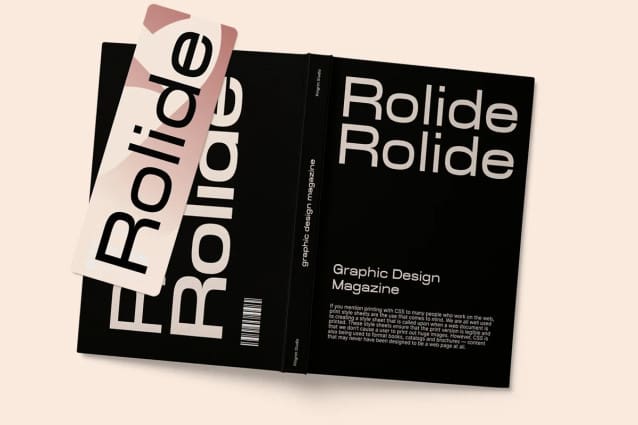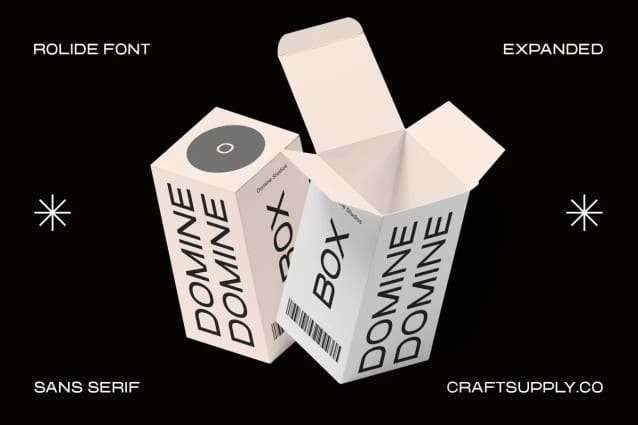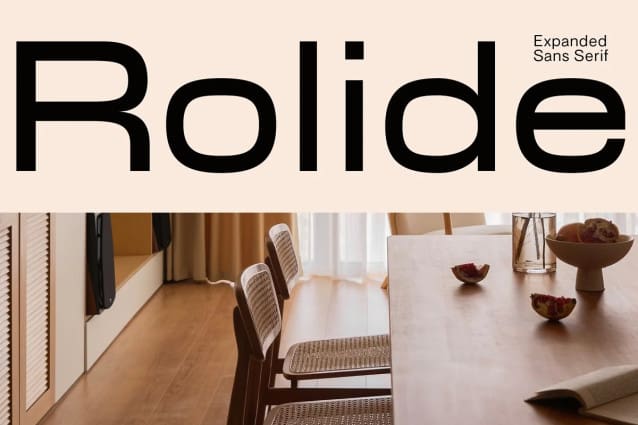
Rolide Font
Rolide Font – This font is your versatile design solution, ideal for titles and body text. Its non-bold style strikes a harmonious balance between subtlety and impact.
Rolide’s wide and expanded characters add a touch of modernity to your projects. They stand out without overwhelming the content.
Whether for titles or body text, Rolide Font is the perfect choice. It maintains clarity and readability, making your content engaging.
In the world of fonts, Rolide embodies elegance through simplicity. Its clean lines and non-bold form offer a contemporary feel.
In conclusion, Rolide – Expanded Sans Serif is the font that marries wide, expanded, and non-bold characters to create a contemporary and versatile design solution. It ensures your titles and body text are engaging, clear, and subtly impactful, appealing to a broad range of readers.